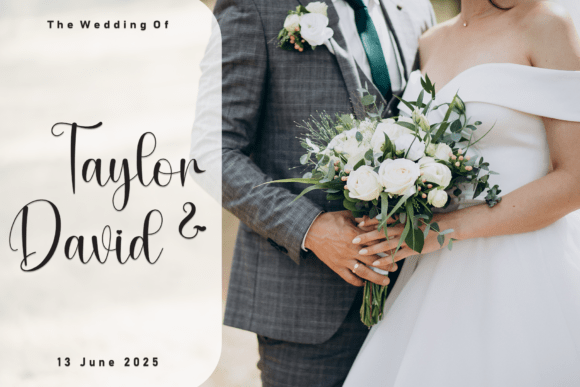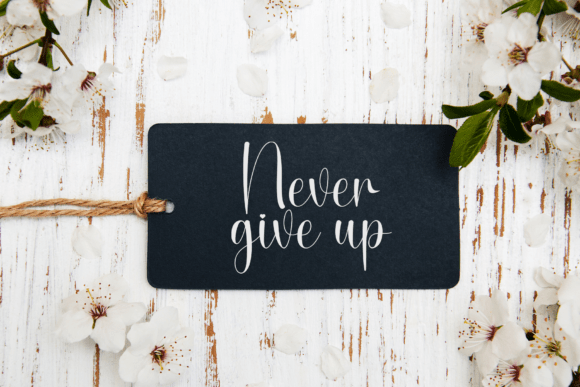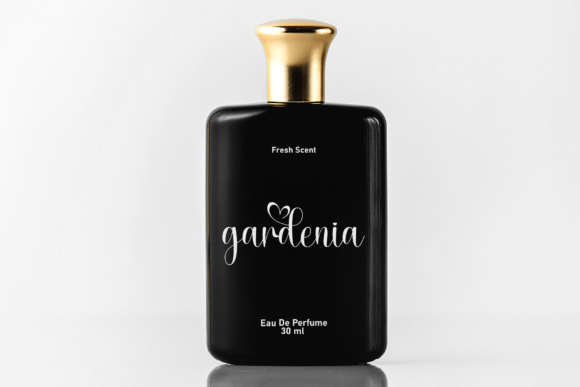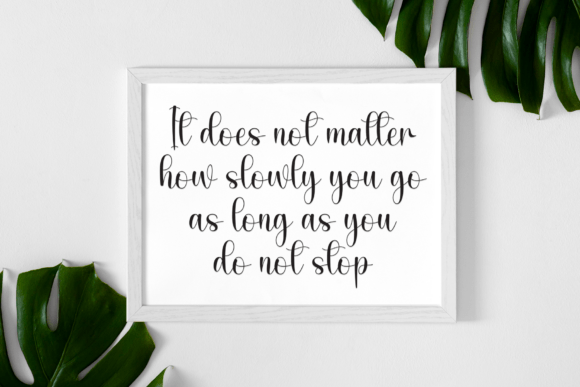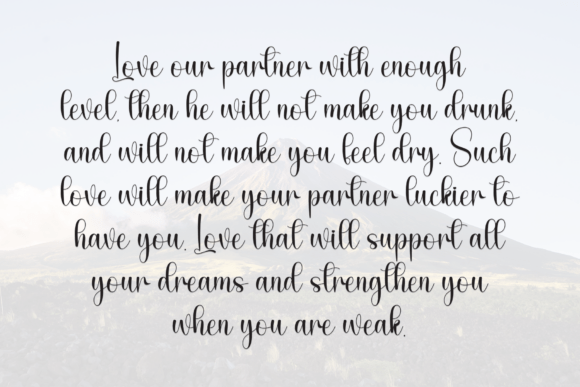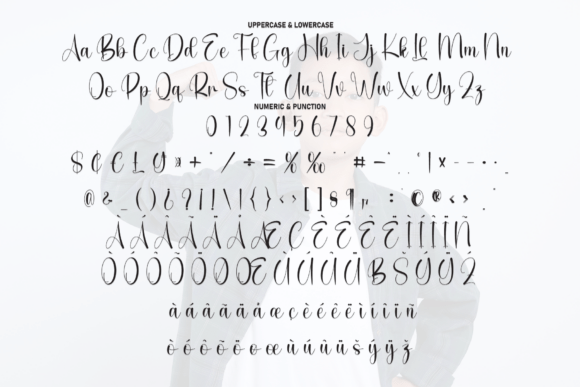
Introducing Bigboy Font: Elevate Your Designs with Fresh Elegance
In the world of typography, a font can make or break the aesthetic of a design. For those seeking a stylish and elegant touch, Bigboy Font is an exceptional choice. This beautiful handwritten script font embodies fresh elegance and delicate charm, making it perfect for a variety of creative projects. In this article, we’ll dive into the features and benefits of Bigboy Font, and explore how it can elevate your designs.
The Characteristics of Bigboy Font
Bigboy Font is a stunning example of a handwritten script font that exudes sophistication and refinement. Its flowing strokes and graceful curves create a sense of fluidity, making it perfect for designs that require a touch of elegance. The font’s delicate charm is sure to captivate your audience, adding a soft, personal touch to any project.
Perfect for Invitations, Branding, and Seasonal Designs
Bigboy Font is an excellent choice for a variety of design applications, including:
- Invitations: Whether it’s a wedding invitation, birthday party, or baby shower, Bigboy Font adds a touch of sophistication and whimsy, making your invitation stand out.
- Branding: For businesses looking to establish a unique and memorable brand identity, Bigboy Font offers a distinctive and stylish solution.
- Seasonal Designs: From holiday cards to seasonal promotions, Bigboy Font’s fresh elegance and delicate charm make it perfect for creating eye-catching designs that resonate with your audience.
Benefits of Using Bigboy Font
So, what sets Bigboy Font apart from other fonts? Here are just a few benefits of incorporating this lovely typeface into your designs:
- Unique and Memorable: Bigboy Font’s distinctive style ensures that your designs will stand out from the crowd, making a lasting impression on your audience.
- Versatile: Whether you’re designing for print or digital platforms, Bigboy Font adapts seamlessly, ensuring your message looks great across various mediums.
- Elegant and Refined: Bigboy Font’s flowing strokes and delicate charm add a touch of sophistication to any design, making it perfect for high-end brands and creative projects.
In conclusion, Bigboy Font is a stylish and elegant handwritten script font that offers a fresh and delicate charm, perfect for a variety of design applications. With its flowing strokes, graceful curves, and soft, personal touch, this lovely typeface is sure to elevate your designs and make a lasting impression on your audience. Whether you’re a designer, crafter, or business owner, Bigboy Font is an excellent choice for adding a touch of sophistication and whimsy to your creative projects.